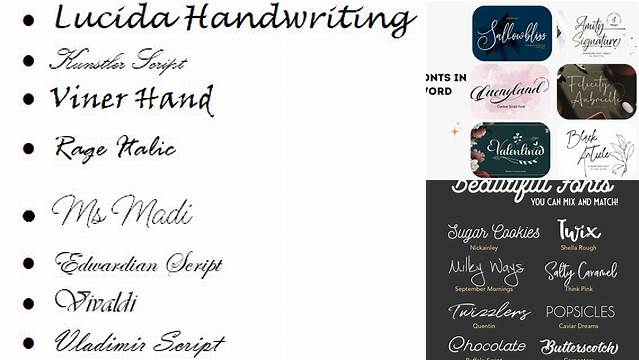
Elegant Cursive Fonts In Microsoft Word: A How-To Guide
Are you looking to add a touch of elegance and sophistication to your documents? Look no further than the world of cursive fonts! In Microsoft Word, choosing the right cursive font can transform your text, making it ideal for invitations, certificates, creative projects, and even professional documents where a personal touch is desired. In this guide, we'll dive deep into the best cursive fonts available in Microsoft Word, how to use them effectively, and some tips for ensuring your documents look their absolute best. So, guys, let's get started on this font-astic journey!
Understanding Cursive Fonts
Before we jump into specific fonts, let's understand what makes a font cursive. Cursive fonts, sometimes called script fonts, are designed to mimic the flowing strokes of handwriting. Unlike standard block fonts, the letters in cursive fonts often connect, creating a seamless and elegant appearance. This connection is key to the visual appeal of cursive fonts, lending them a sense of fluidity and grace. However, not all cursive fonts are created equal. They range from formal and traditional scripts to more playful and modern styles. Understanding these nuances is crucial when selecting the perfect font for your project.
When you're choosing a cursive font, it's essential to consider the overall tone and purpose of your document. A formal invitation, for example, might call for a classic and refined script, whereas a casual greeting card could benefit from a more whimsical and lighthearted option. The legibility of the font is another critical factor. While cursive fonts are beautiful, some can be difficult to read, especially in large blocks of text. Always prioritize clarity to ensure your message is communicated effectively. Choosing the correct font can seem daunting, but with a little know-how, you'll be crafting beautiful documents in no time!
Why Use Cursive Fonts?
Cursive fonts have a unique ability to convey a sense of personality and warmth that standard fonts often lack. They can add a touch of sophistication to formal documents or a playful flair to more casual designs. The use of cursive fonts can evoke feelings of elegance, tradition, and even romance, making them ideal for a wide range of applications. Think about wedding invitations, where a beautifully scripted font can set the tone for a romantic and memorable event. Or consider certificates and awards, where a cursive font can add an air of prestige and accomplishment.
Moreover, cursive fonts can help your document stand out from the crowd. In a world saturated with standard fonts like Arial and Times New Roman, using a cursive font can make your text more visually appealing and memorable. This is particularly useful in marketing materials, where you want to grab the reader's attention and leave a lasting impression. However, it's important to use cursive fonts sparingly and strategically. Overusing them can diminish their impact and even make your document look cluttered or unprofessional. The key is to find the right balance, using cursive fonts to highlight key elements while maintaining overall readability and coherence.
Top Cursive Fonts in Microsoft Word
Microsoft Word comes with a variety of cursive fonts pre-installed, offering a wide range of styles to suit different needs. Let's explore some of the top contenders, looking at their unique characteristics and best uses. Knowing your options is the first step in making the right choice for your project. We'll cover both classic favorites and some lesser-known gems, giving you a comprehensive overview of what's available.
Popular Choices
Brush Script MT: Brush Script MT is a classic choice, known for its flowing, handwritten style. It's a versatile font that works well for invitations, announcements, and informal documents. Its slightly irregular strokes give it a natural, hand-lettered feel, adding a touch of authenticity to your text. However, it's best used sparingly, as large blocks of text in Brush Script MT can be difficult to read.
Edwardian Script ITC: Edwardian Script ITC is an elegant and formal script, perfect for wedding invitations, certificates, and other high-end applications. Its intricate letterforms and graceful swashes exude sophistication and refinement. This font is a great choice when you want to convey a sense of luxury and tradition. Keep in mind that Edwardian Script ITC is best used for short phrases or headings, as its ornate style can be overwhelming in large blocks of text.
Kunstler Script: For a more playful and whimsical feel, Kunstler Script is an excellent option. Its bouncy baseline and irregular letterforms give it a cheerful and informal appearance. This font is ideal for greeting cards, personal notes, and creative projects. Kunstler Script is particularly well-suited for designs that aim to convey a sense of fun and lightheartedness.
Script MT Bold: Script MT Bold provides a bolder, more pronounced cursive style. It's a great choice for headings, titles, and other text elements that need to stand out. The thicker strokes of Script MT Bold make it more legible than some of the lighter cursive fonts, making it a practical option for situations where clarity is paramount. It strikes a good balance between elegance and readability.
Lesser-Known Gems
French Script MT: If you're looking for a font with a touch of French flair, French Script MT is a lovely choice. Its delicate letterforms and graceful curves evoke the elegance of French calligraphy. This font is perfect for adding a touch of sophistication to invitations, menus, and other formal documents. French Script MT has a certain je ne sais quoi that makes it stand out from the crowd.
Bradley Hand ITC: For a more casual and handwritten feel, Bradley Hand ITC is an excellent option. This font mimics the look of everyday handwriting, making it ideal for personal notes, journal entries, and other informal applications. Bradley Hand ITC has a friendly and approachable quality that makes it perfect for conveying a sense of warmth and authenticity.
Segoe Script: Segoe Script is a modern and clean cursive font that strikes a balance between elegance and readability. Its simple, flowing letterforms make it a versatile choice for a wide range of applications, from business correspondence to creative projects. Segoe Script is a great option when you want a cursive font that feels contemporary and professional.
How to Use Cursive Fonts Effectively in Microsoft Word
Now that we've explored some of the best cursive fonts available in Microsoft Word, let's talk about how to use them effectively. Simply selecting a beautiful font isn't enough; you need to consider factors like size, spacing, and context to ensure your documents look their best. Proper usage can make all the difference between a document that looks polished and professional and one that feels cluttered and amateurish.
Choosing the Right Size and Spacing
The size of your cursive font can significantly impact its readability. Cursive fonts, with their intricate letterforms, can become difficult to read if they're too small. Conversely, if they're too large, they can overwhelm the page. The ideal size will depend on the specific font and the context in which it's used, but as a general rule, it's best to err on the side of slightly larger rather than smaller. Experiment with different sizes to find what looks best for your particular font and layout.
Spacing is another crucial factor. Cursive fonts often benefit from a little extra spacing between letters and lines. This helps to prevent the letters from running together and improves overall readability. In Microsoft Word, you can adjust the spacing using the Font dialog box. Experiment with different spacing settings to find a balance that enhances the font's elegance without sacrificing clarity.
Balancing Cursive with Other Fonts
Cursive fonts are best used sparingly, often as accents or highlights rather than for large blocks of text. A good strategy is to pair a cursive font with a more legible sans-serif or serif font for the main body of your text. This creates a visual contrast that can be both appealing and functional. For example, you might use a cursive font for headings or titles and a standard font like Arial or Times New Roman for the body text.
When pairing fonts, it's important to choose fonts that complement each other. A classic serif font like Garamond can pair beautifully with an elegant cursive script like Edwardian Script ITC, while a modern sans-serif font like Helvetica might work well with a cleaner cursive option like Segoe Script. The key is to create a harmonious balance that enhances the overall design of your document.
Context Matters
The context in which you use a cursive font is just as important as the font itself. A font that looks stunning on a wedding invitation might feel out of place in a business report. Consider the purpose of your document and the message you want to convey. Formal documents often call for more traditional and refined cursive fonts, while casual projects can benefit from more playful and whimsical options. Always choose a font that aligns with the tone and style of your content.
Tips for Legibility and Readability
While cursive fonts are visually appealing, they can sometimes be challenging to read. Ensuring legibility is crucial, especially when your goal is to communicate effectively. Here are some tips to help you make your cursive fonts as readable as possible.
Avoid Overuse
As we've mentioned before, cursive fonts are best used sparingly. Overusing them can not only diminish their impact but also make your document difficult to read. Stick to using cursive fonts for headings, titles, or short phrases where you want to add a touch of elegance or personality. For the main body of your text, choose a more legible font.
Choose Fonts with Clear Letterforms
Some cursive fonts are more legible than others. When selecting a font, look for options with clear and well-defined letterforms. Avoid fonts with overly ornate or intricate designs, as these can be difficult to decipher. Fonts like Segoe Script and Script MT Bold are generally more legible than more elaborate scripts like Edwardian Script ITC.
Adjust Letter and Line Spacing
Proper spacing can significantly improve the readability of cursive fonts. Adjusting the letter spacing (also known as tracking) and the line spacing (also known as leading) can help to prevent the letters from running together and create a more open and airy feel. In Microsoft Word, you can adjust these settings in the Font dialog box. Experiment with different spacing options to find what works best for your chosen font.
Use Sufficient Contrast
The contrast between your text and the background can also affect readability. Ensure that your cursive font is easily distinguishable from the background color. Dark text on a light background is generally the most legible combination. If you're using a light-colored font, make sure your background is dark enough to provide sufficient contrast. Avoid using cursive fonts in colors that are too similar to the background, as this can make the text difficult to read.
Cursive fonts can add a touch of elegance and personality to your documents in Microsoft Word. By understanding the different types of cursive fonts available and how to use them effectively, you can create documents that are both visually appealing and easy to read. Remember to choose fonts that align with the purpose and tone of your content, use them sparingly, and prioritize legibility. With these tips in mind, you'll be well on your way to mastering the art of cursive typography. So go ahead, guys, and add that touch of cursive magic to your next project!